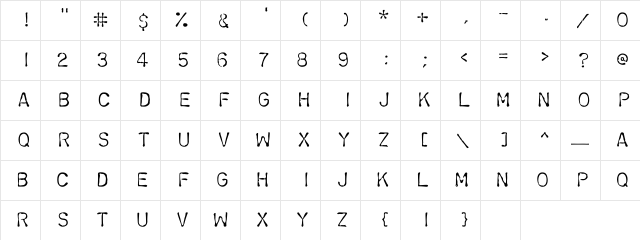
ChromosomeLight Regular
Design Context for ChromosomeLight Typeface
ChromosomeLight takes a measured approach to typography — its balanced proportions and neutral character make it a reliable workhorse for both digital and print work. Its slender proportions lend an understated elegance to any composition.